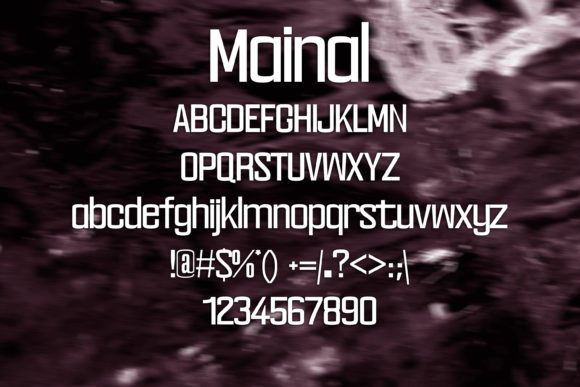
Introduction to Mainal Font
Mainal is a sans serif font inspired by traditional sign painting with a modern twist.
It’s super clean and minimal, perfect for any modern design .
Key Features of Mainal Font